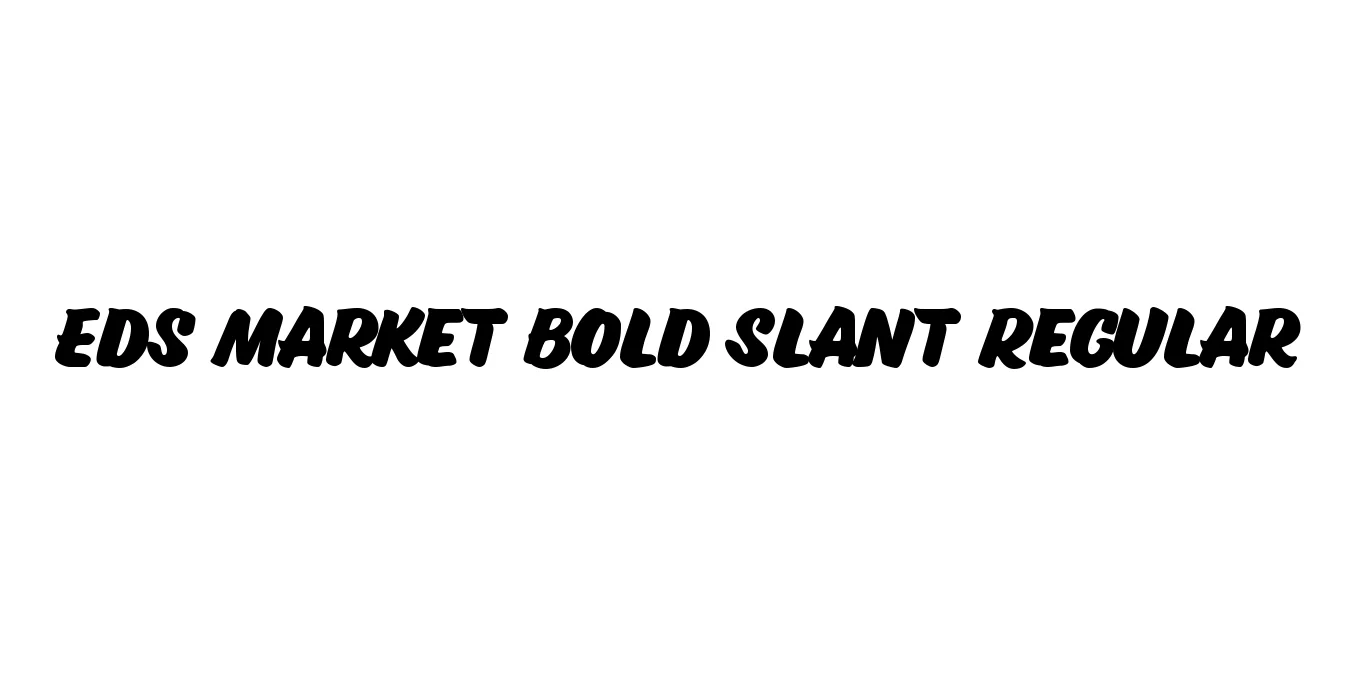
Eds Market Bold Slant Regular
Designed by Laura Worthington
Eds Market Bold Slant Regular is a vibrant and energetic brush script designed by the prolific Laura Worthington. This font is part of a larger collection inspired by the hand-lettered grocery store signage and advertising art of the mid-20th century. The Bold Slant variant specifically captures the dynamic, fast-paced motion of a sign painter's brush, offering a nostalgic yet highly versatile aesthetic that bridges the gap between retro charm and modern utility.
The typeface is characterized by its rhythmic flow and authentic texture, making it appear as though it were painted directly onto the page. With its thick, confident strokes and slight italicized lean, it provides an immediate sense of personality and warmth. It is part of a family designed to be mixed and matched, allowing designers to create complex, multi-layered typographic layouts that look organic and hand-crafted.
Eds Market Bold Slant Regular Best Uses
Ideal for artisanal brands seeking a hand-crafted and nostalgic visual identity.
Perfect for food, craft beer, and organic product labels requiring a human touch.
Excellent for high-energy promotional posters and store window graphics.
Great for creating eye-catching quotes and engaging digital content.